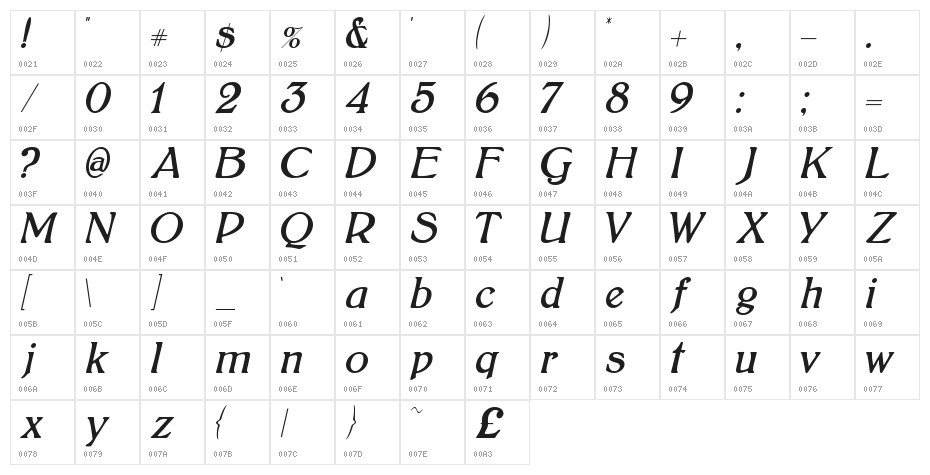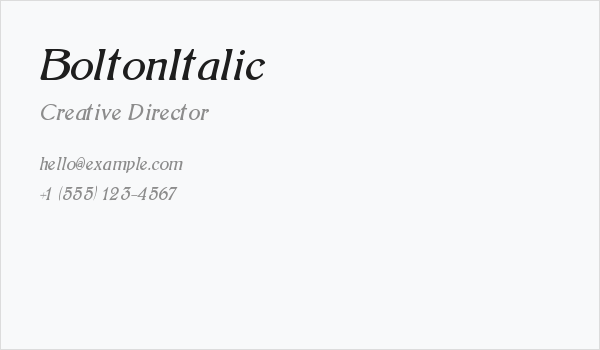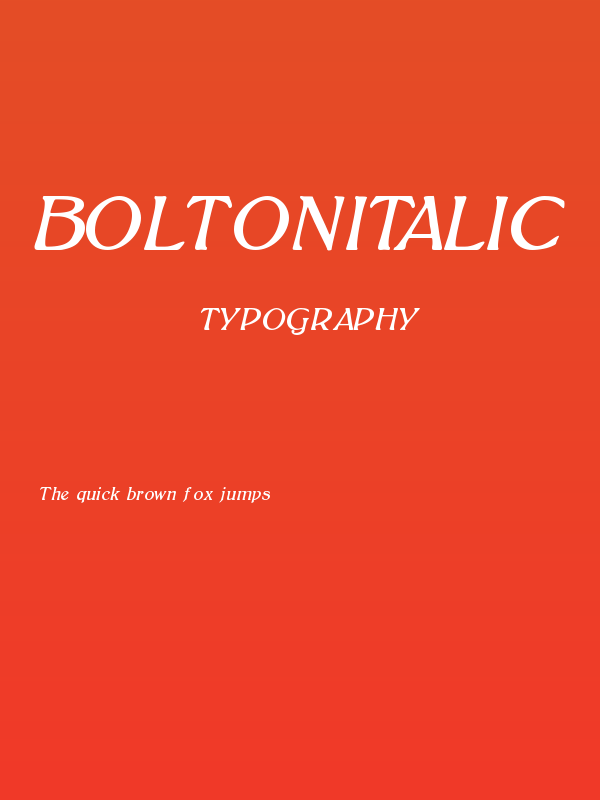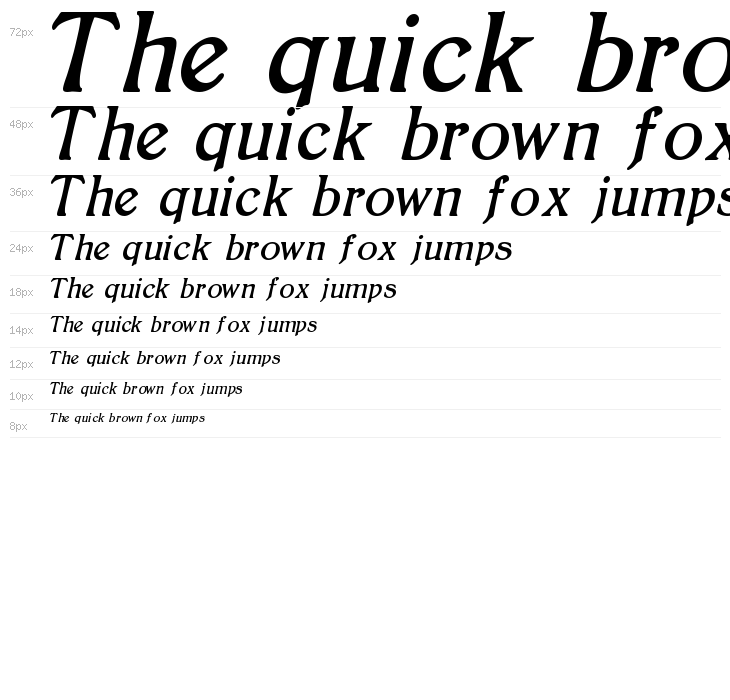
BoltonItalic Font
BoltonItalic Description
This font exudes a classic elegance with its italicized form, featuring smooth curves and a slight slant that adds a sense of motion and sophistication. The serifs are pronounced yet refined, giving each character a distinct presence. The uppercase letters are tall and commanding, while the lowercase letters maintain a balanced and harmonious flow. Numbers are clear and legible, making them suitable for various applications. Special characters are thoughtfully designed, maintaining the overall aesthetic of the font. The consistent stroke width provides a uniform appearance, enhancing readability.
| Proposed Projects | Ideal for formal invitations, elegant branding, book covers, and editorial design. |